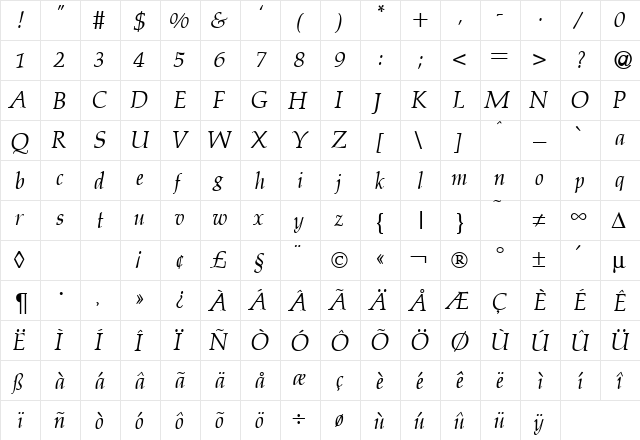
PalazzoOriginal RegularItalic
Design Context for PalazzoOriginal Typeface
PalazzoOriginal is a composed and adaptable typeface that performs quietly and consistently across a wide range of design contexts. Its italic angle brings a sense of urgency and motion to the letterforms.
Pro Tip: Try PalazzoOriginal for annotation and caption copy alongside an upright companion — the contrast in angle creates a dynamic but ordered typographic system.